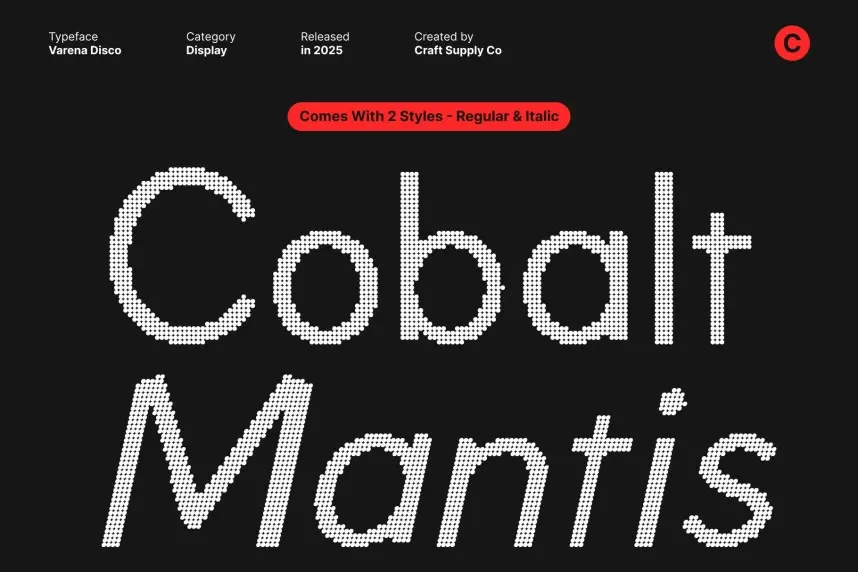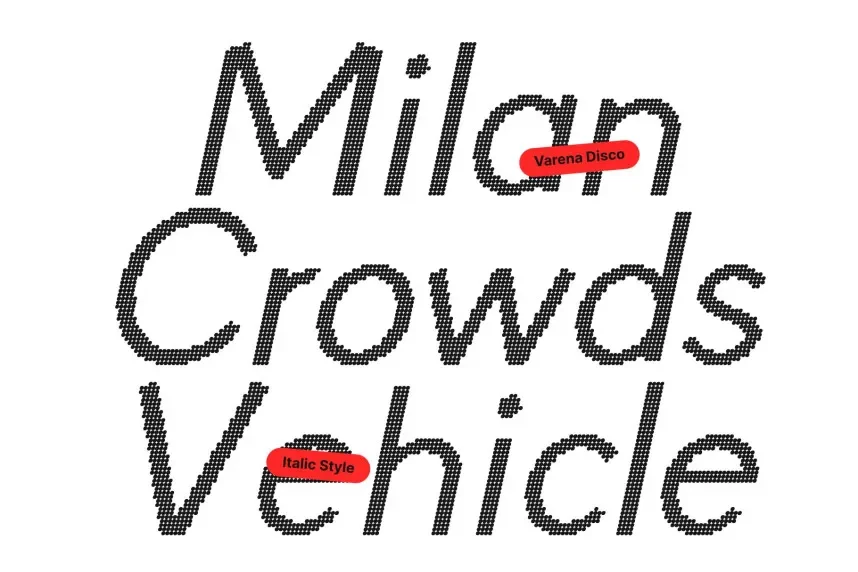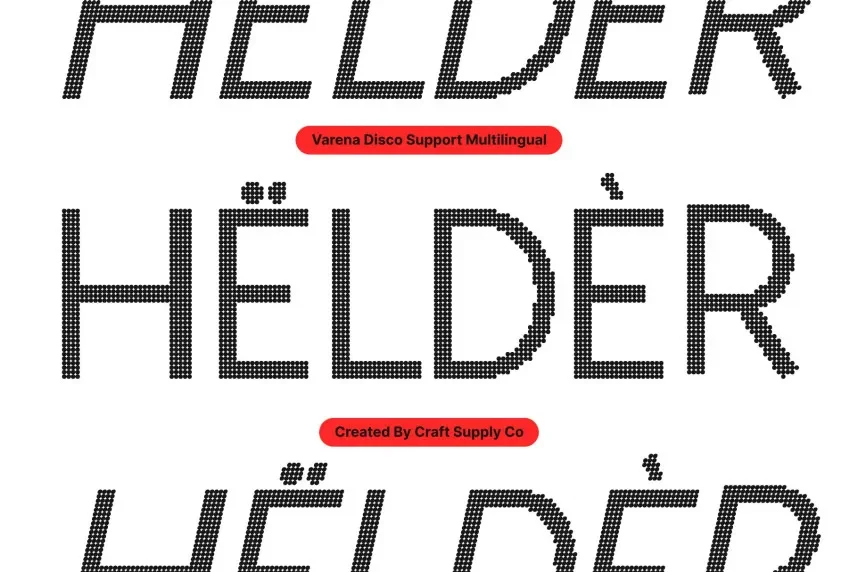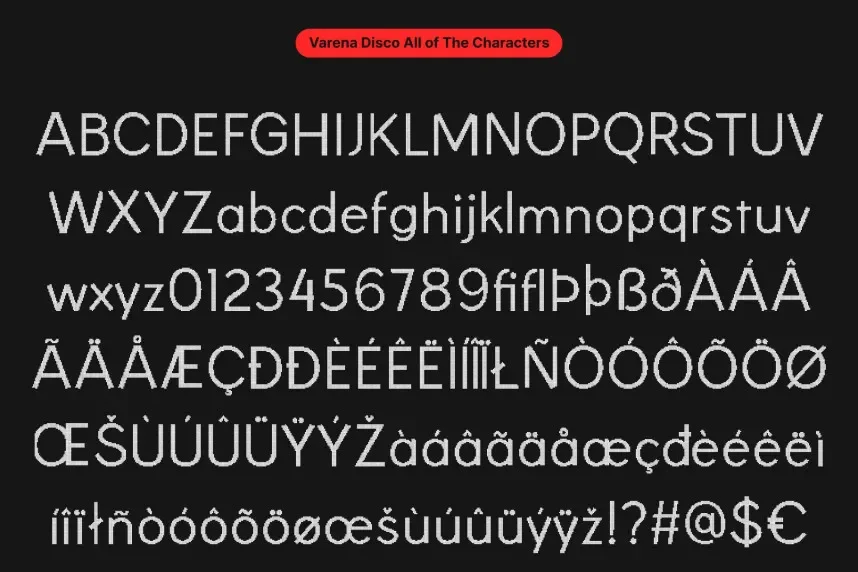
Varena Disco Font is a display font created for bold visual systems that need consistency across print and digital platforms. Designers use it when standard sans-serif fonts feel too neutral for expressive branding or promotional content.
The font includes thick strokes, rounded terminals, and uniform proportions that support readability at large sizes. Its disco-inspired structure emphasizes symmetry and strong shapes, helping logos and posters stand out. Varena Disco Font is optimized for headlines, not body copy.